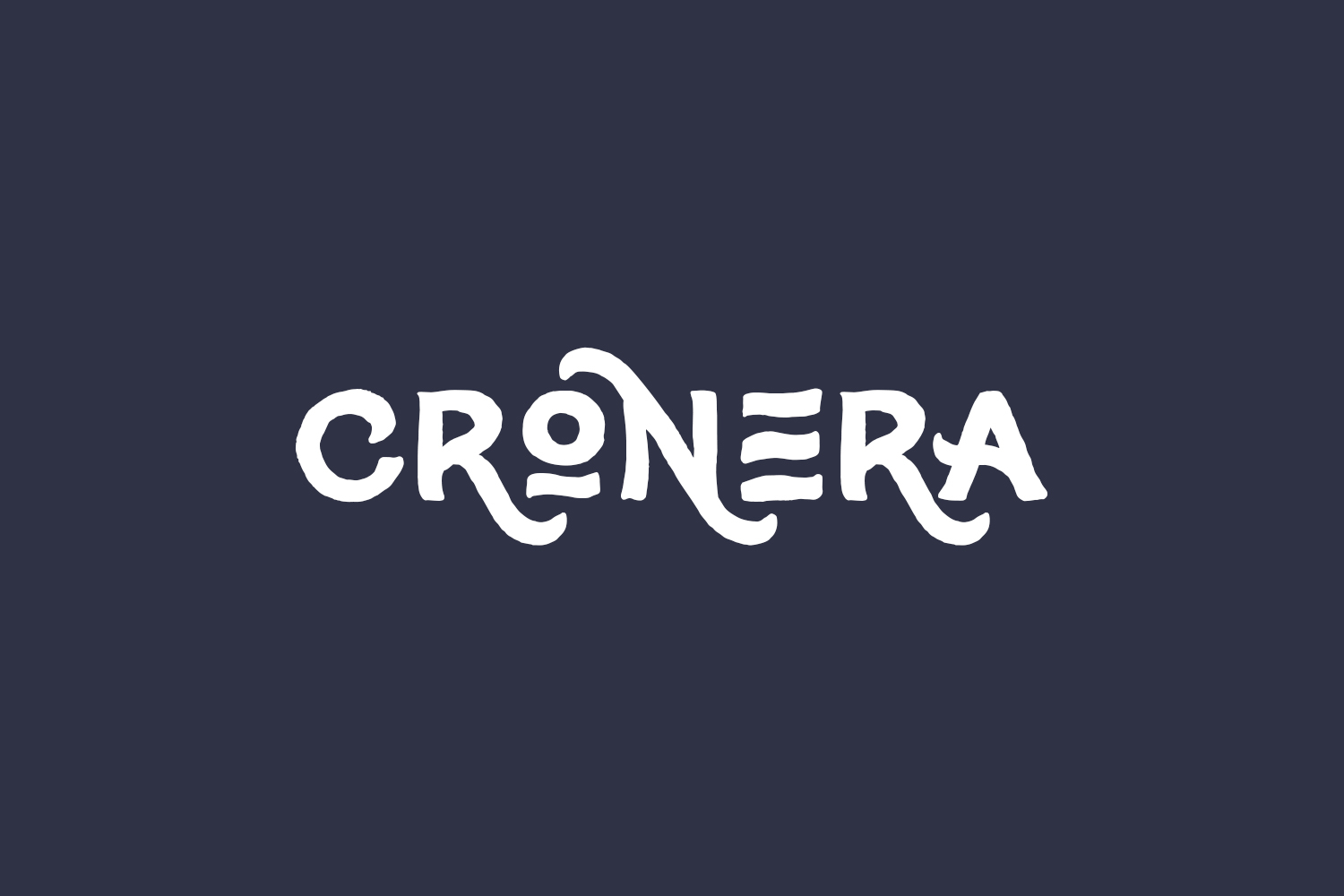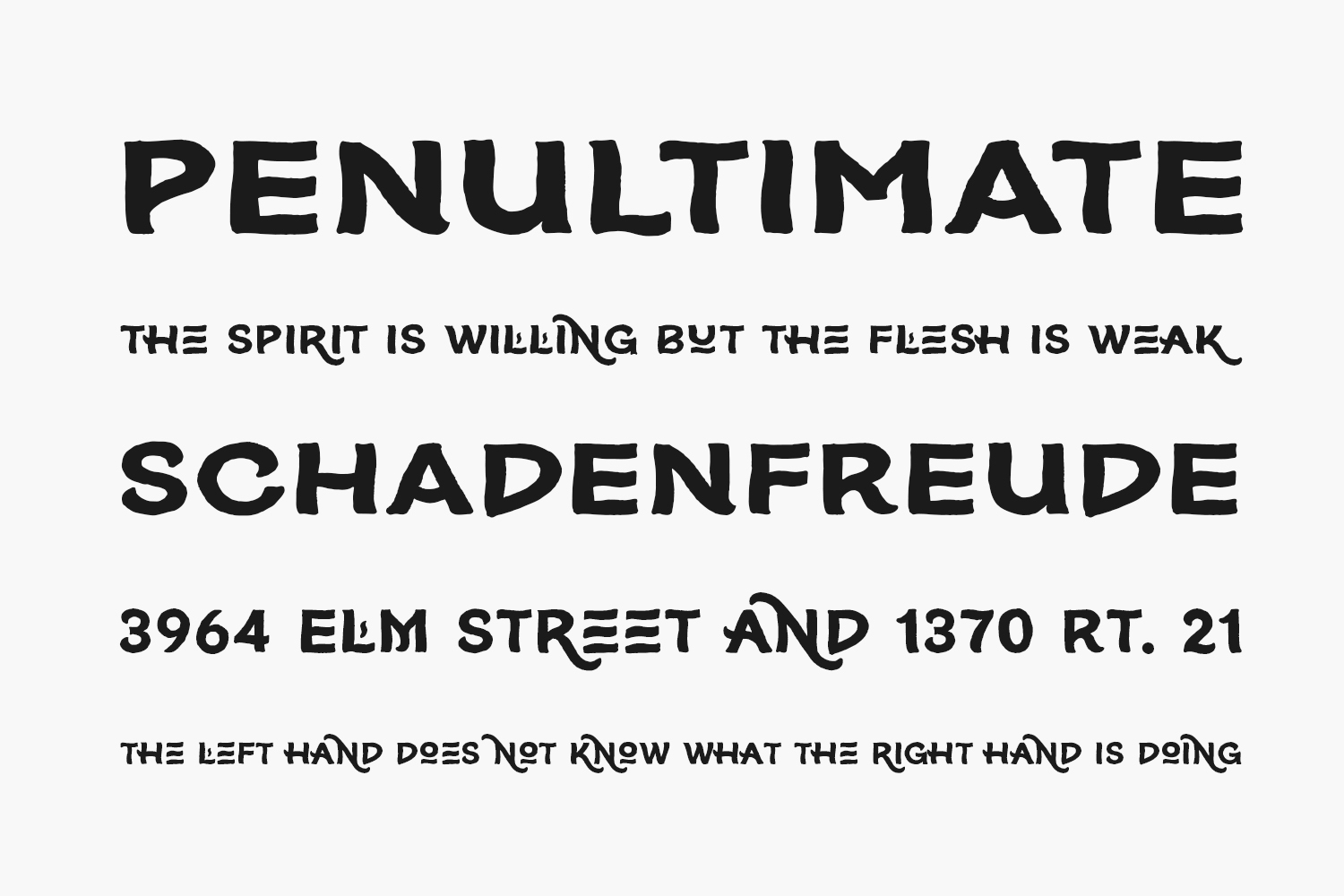
Cronera Free Font is a bold, organic, and thick lettered display font. Whatever the topic, this font will be an incredible asset to your font library, as it has the potential to enhance any creation. Cronera Free Font was designed by Saridezra and is free for personal use only. Please purchase the full version for commercial use.